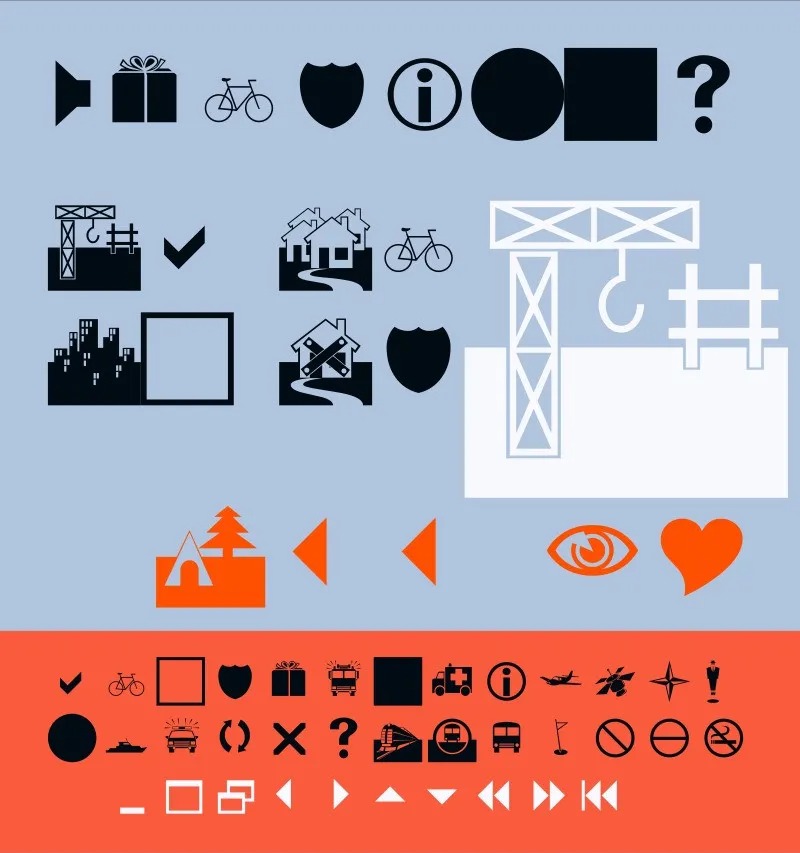
Webdings is a TrueType dingbat typeface developed in 1997. It was initially distributed with Internet Explorer 4.0, then as part of Core fonts for the Web, and is included in all versions of Microsoft Windows since Windows 98.
All of the Webding glyphs that are not unifiable with existing Unicode characters were added to the Unicode Standard when version 7.0 was released in June 2014.